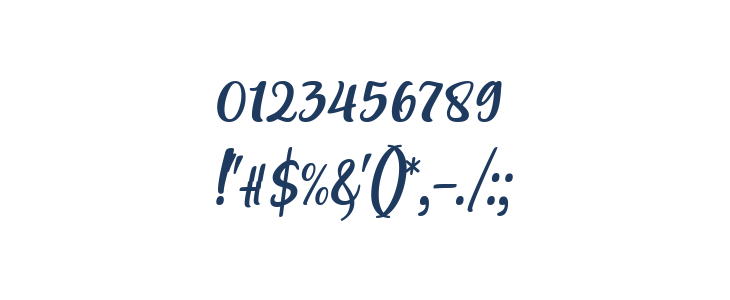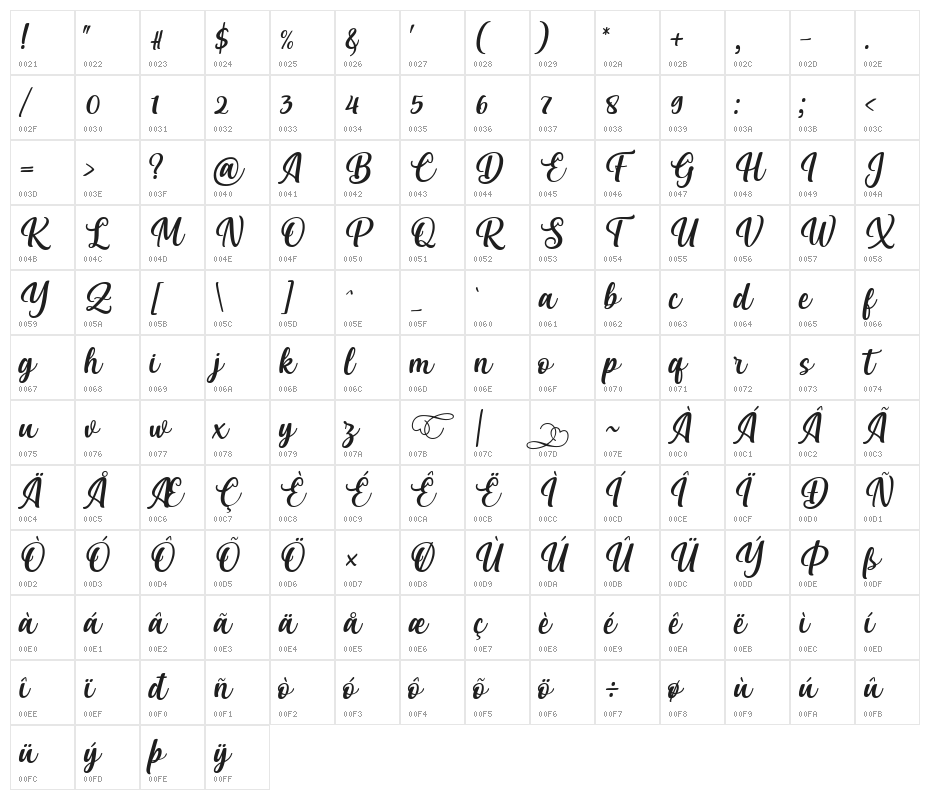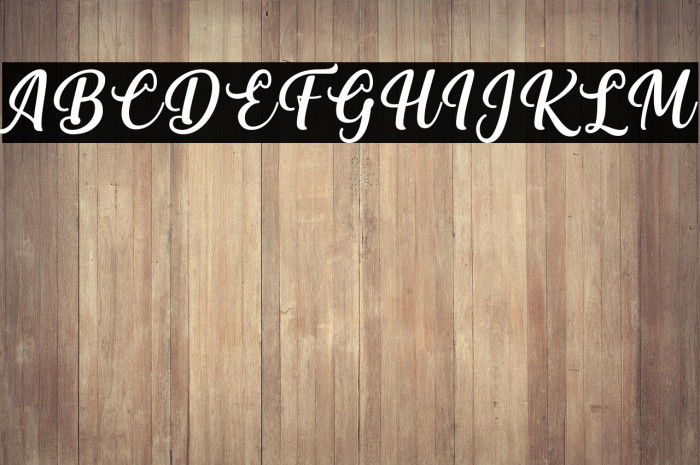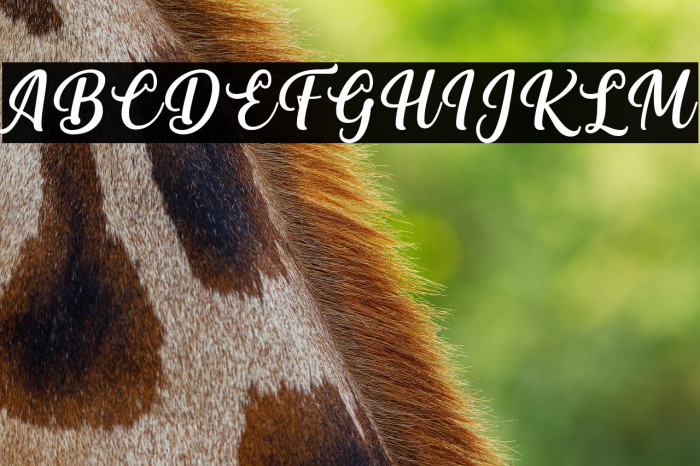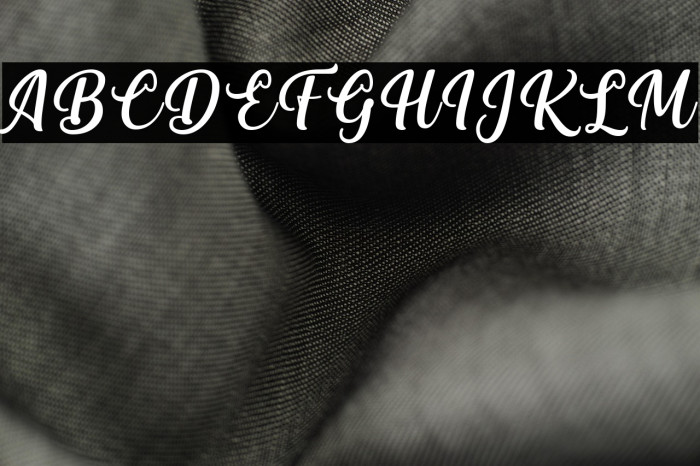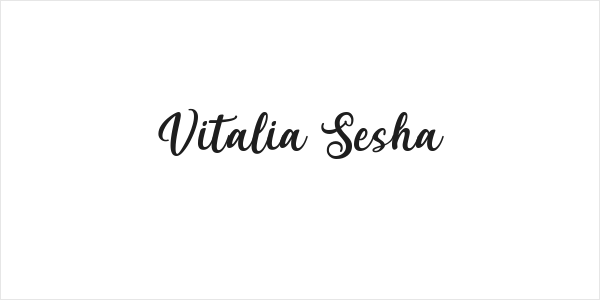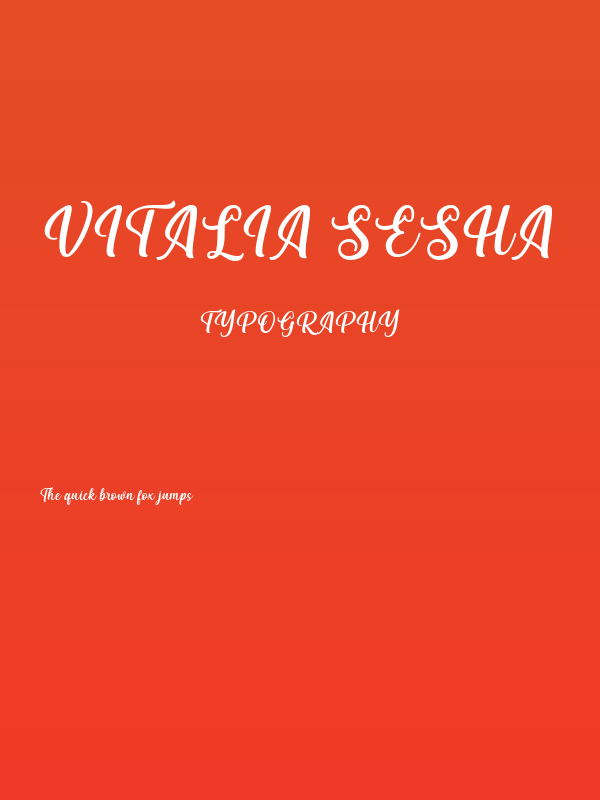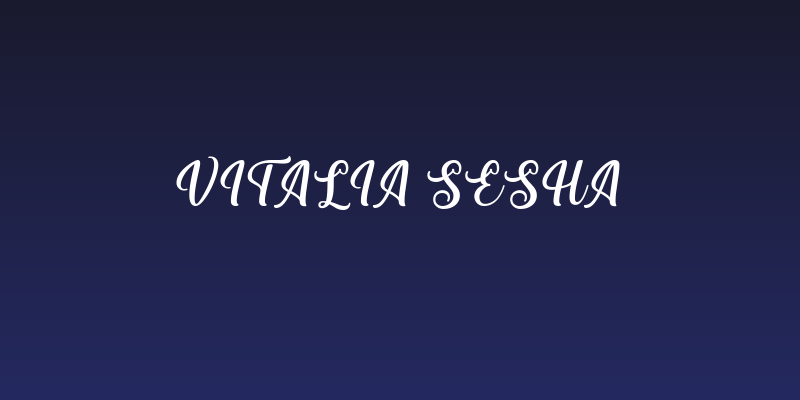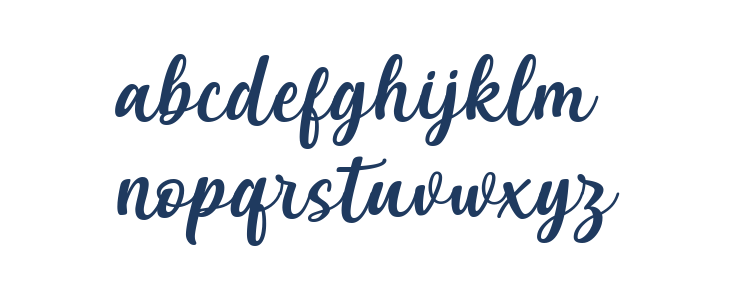
Vitalia Sesha Font
Vitalia Sesha Description
This font features a flowing, cursive style with elegant, sweeping strokes that give it a handwritten appearance. The uppercase letters are bold and prominent, while the lowercase letters maintain a consistent fluidity, enhancing the script-like quality. The numerals are clear and maintain the same stylistic curves as the letters, ensuring cohesion throughout. Special characters are thoughtfully integrated, maintaining the overall aesthetic. The font's design is both sophisticated and approachable, making it suitable for a variety of creative applications.